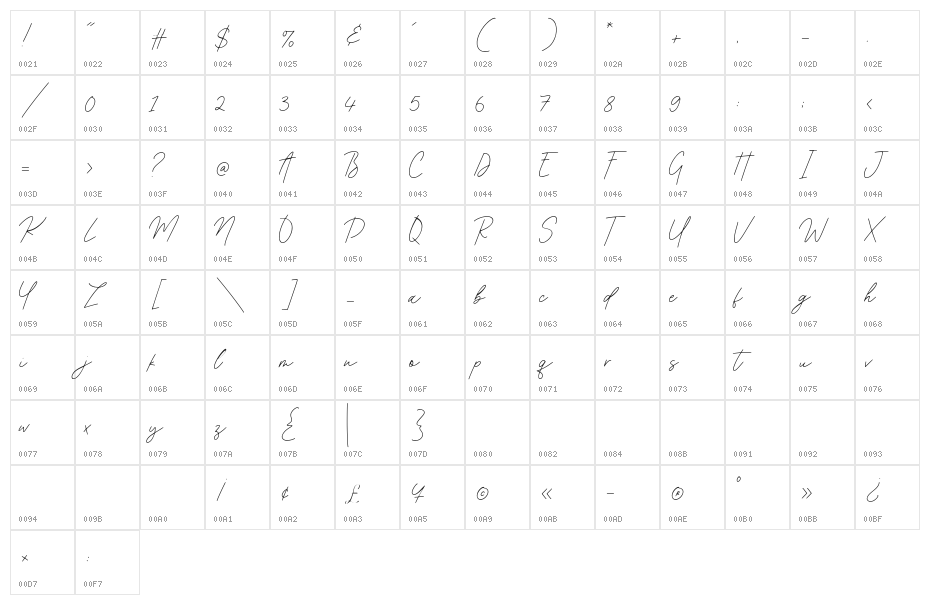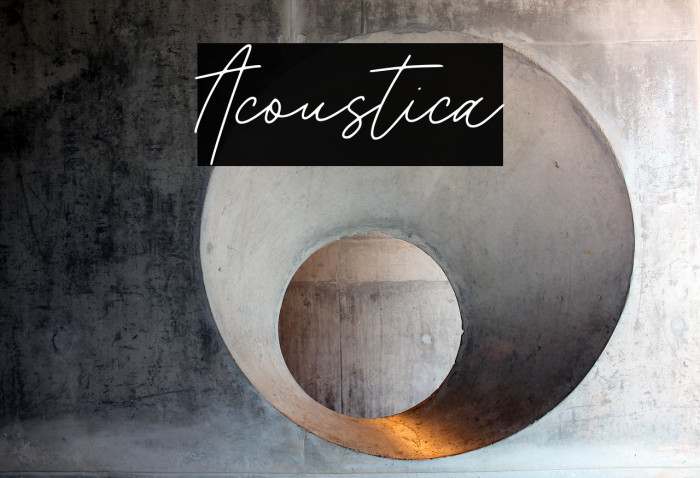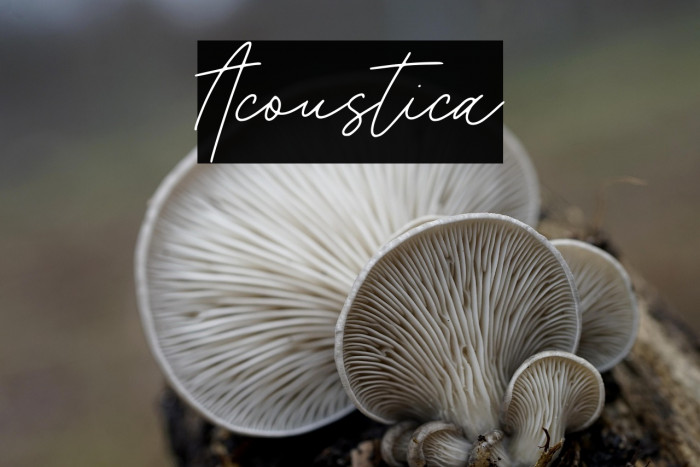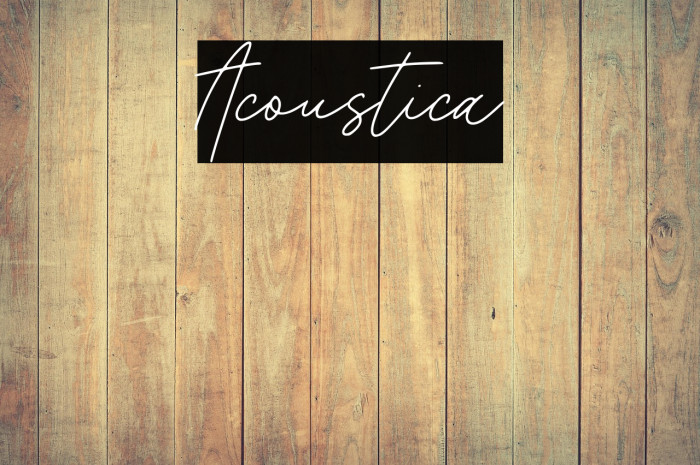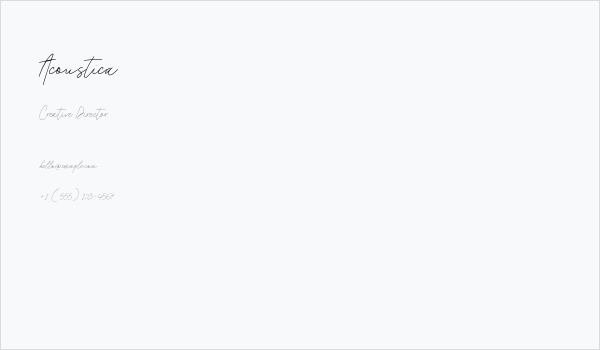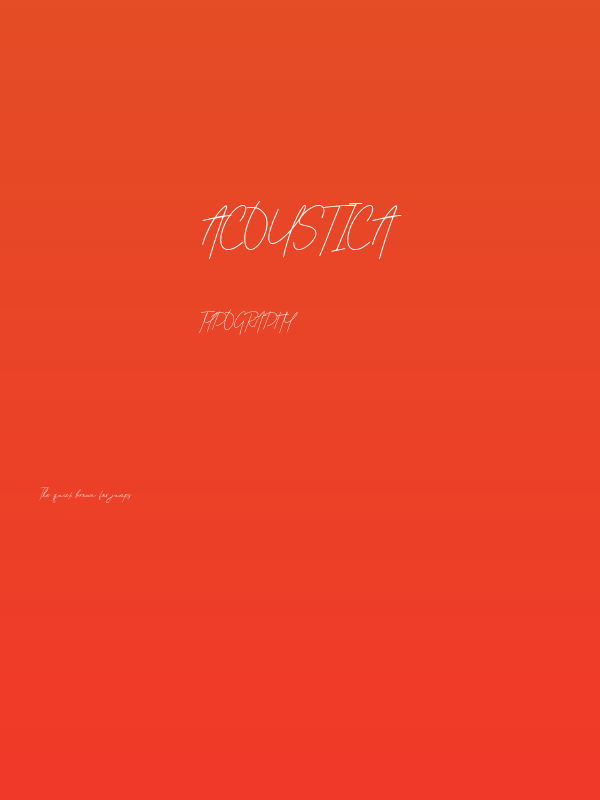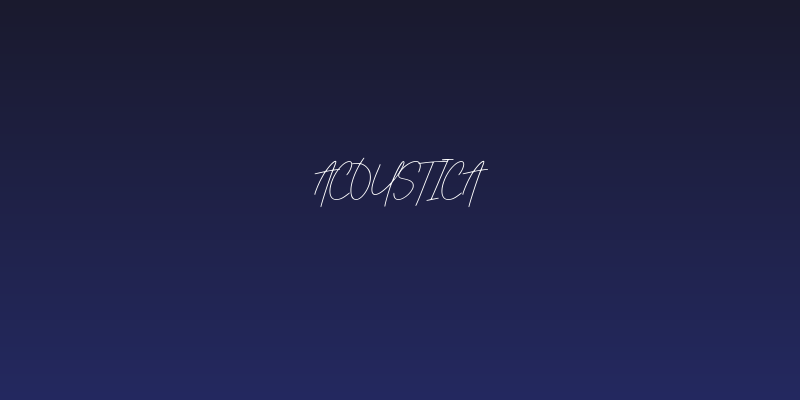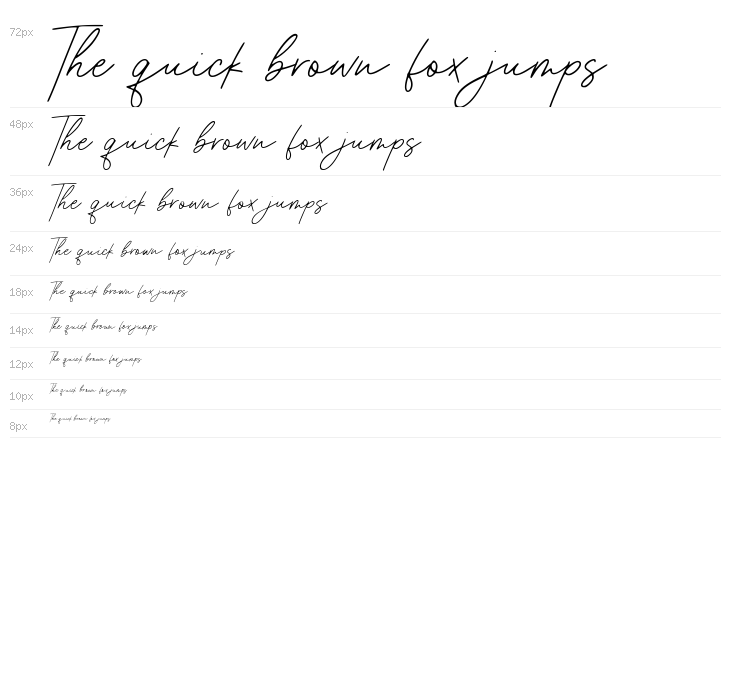
Acoustica Font
Acoustica Description
This font exudes a modern, handwritten style with a touch of elegance and fluidity. The characters are crafted with a delicate, flowing script that mimics natural handwriting, giving it a personal and intimate feel. The uppercase letters are tall and slightly slanted, while the lowercase letters maintain a consistent, smooth flow. The numbers and special characters are designed to complement the overall aesthetic, maintaining the same graceful curves and lines. The font's thin strokes and high contrast between thick and thin lines add to its sophisticated appearance, making it ideal for projects that require a personal touch.